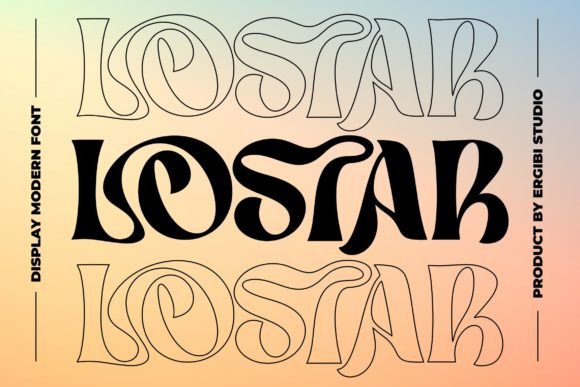
Unlock the Gateway to Elegance: Introducing Lostar, the Serif Font That Redefines Modernity
In a world saturated with digital noise, your brand's voice needs a distinct echo to cut through the clutter and resonate with your audience. Lostar, our meticulously crafted serif font, emerges as the ultimate weapon in your typographic arsenal, empowering you to craft messages that seduce, persuade, and leave a lasting imprint.
Lostar's allure lies in its masterful fusion of tradition and innovation. With its bold letterforms and distinctive ligatures, this font transcends the boundaries of ordinary serif fonts, commanding attention and igniting imagination. Witness the allure of headlines that dance with grace, logos that radiate sophistication, and posters that whisper tales of timeless elegance.
Step into a Realm of Endless Creative Possibilities:
- Unleash the fashionista within: Lostar's inherent charm makes it the perfect companion for fashion blogs, where style reigns supreme. Its ability to capture the essence of haute couture and project an aura of exclusivity will elevate your content to the realm of the extraordinary.
- Embrace the allure of artistic expression: Unleash your inner artist with Lostar, the font that transforms ordinary designs into captivating masterpieces. Its inherent ability to evoke emotion and create a sense of intrigue makes it ideal for posters, packaging, and T-shirts that speak to the soul.
- Awaken the senses with culinary delight: Embark on a gastronomic journey with Lostar, the font that adds a dash of flavor to your culinary creations. Its presence on menus, coffee shop signage, and restaurant logos will tantalize taste buds and leave a lasting impression.
- Create spaces that exude warmth and sophistication: Infuse your living spaces with the charm of Lostar, the font that transforms homes into havens of tranquility. Its timeless elegance will adorn magazine headers, signs, and gift cards with a touch of understated luxury.
- Celebrate life's milestones with timeless elegance: Let Lostar narrate your life's milestones, adding a touch of sophistication to wedding invitations, postcards, and café menus. Its ability to capture the essence of joy and create a sense of occasion will make your celebrations truly unforgettable.
Unleash the Power of Versatility:
Lostar's versatility knows no bounds, adapting seamlessly to a myriad of design aesthetics. Its inherent ability to blend seamlessly with various color palettes and design elements ensures that your creations remain captivating regardless of the context.
- Bask in the glow of sophistication: Lostar's inherent elegance shines effortlessly in formal settings, adding a touch of refinement to corporate presentations, legal documents, and academic papers.
- Ignite the flame of creativity: Embrace the unconventional with Lostar, the font that adds an edgy touch to contemporary art, experimental typography, and unconventional branding. Its ability to break boundaries and challenge norms will set your designs apart from the mundane.
- Weave tales of enchantment: Transport your readers to magical realms with Lostar, the font that breathes life into fantasy novels, children's books, and enchanting stories. Its ability to evoke a sense of wonder and capture the imagination will leave your audience spellbound.